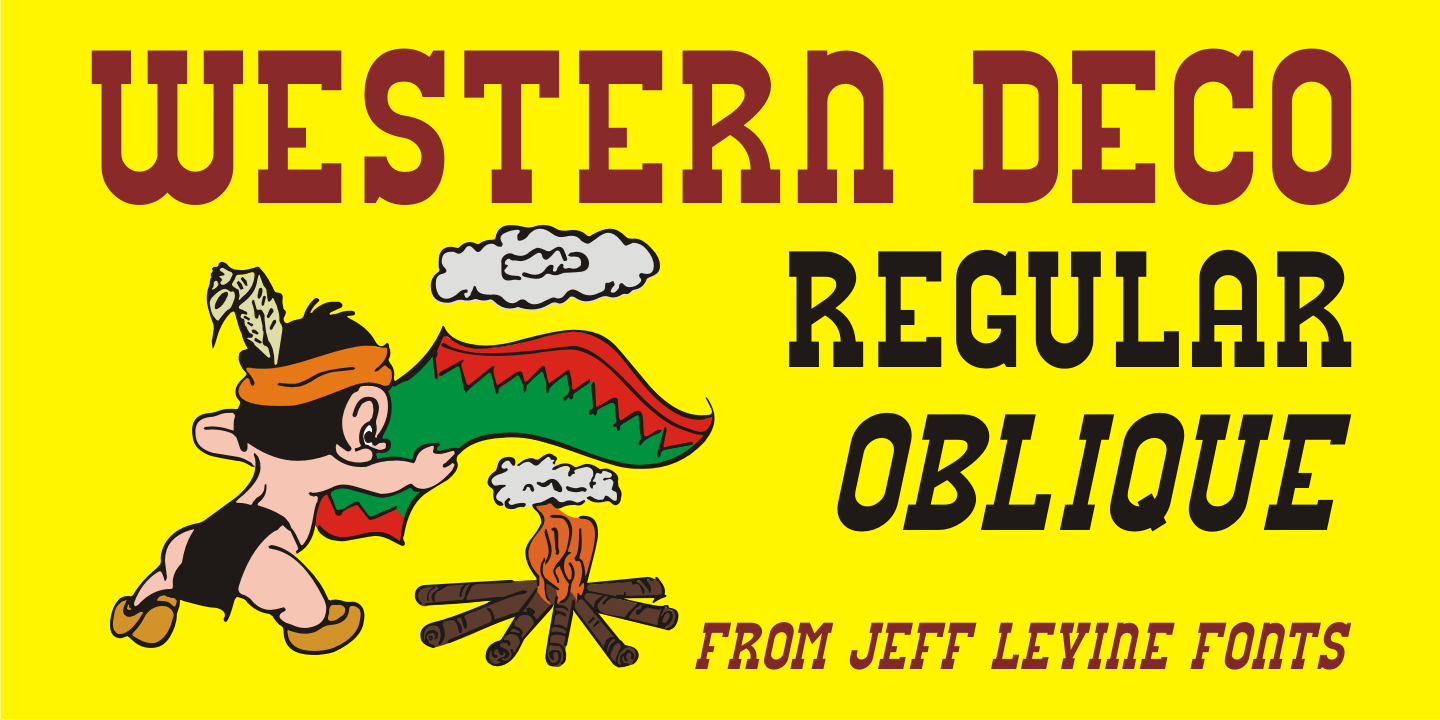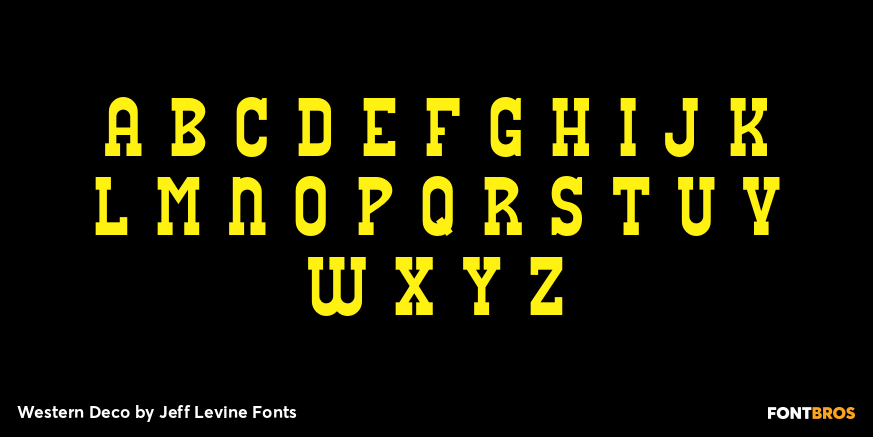
Western Deco
The cover of the 1938 sheet music for 'Treasure Island March' had its title hand lettered in a rough-hewn Western style with overtones of Art Deco influence.
All of the characters were 'cleaned up' for the digital font, but still retain the basic designs with their irregular, eccentric look.
The result is Western Deco JNL, which is available in both regular and oblique versions.